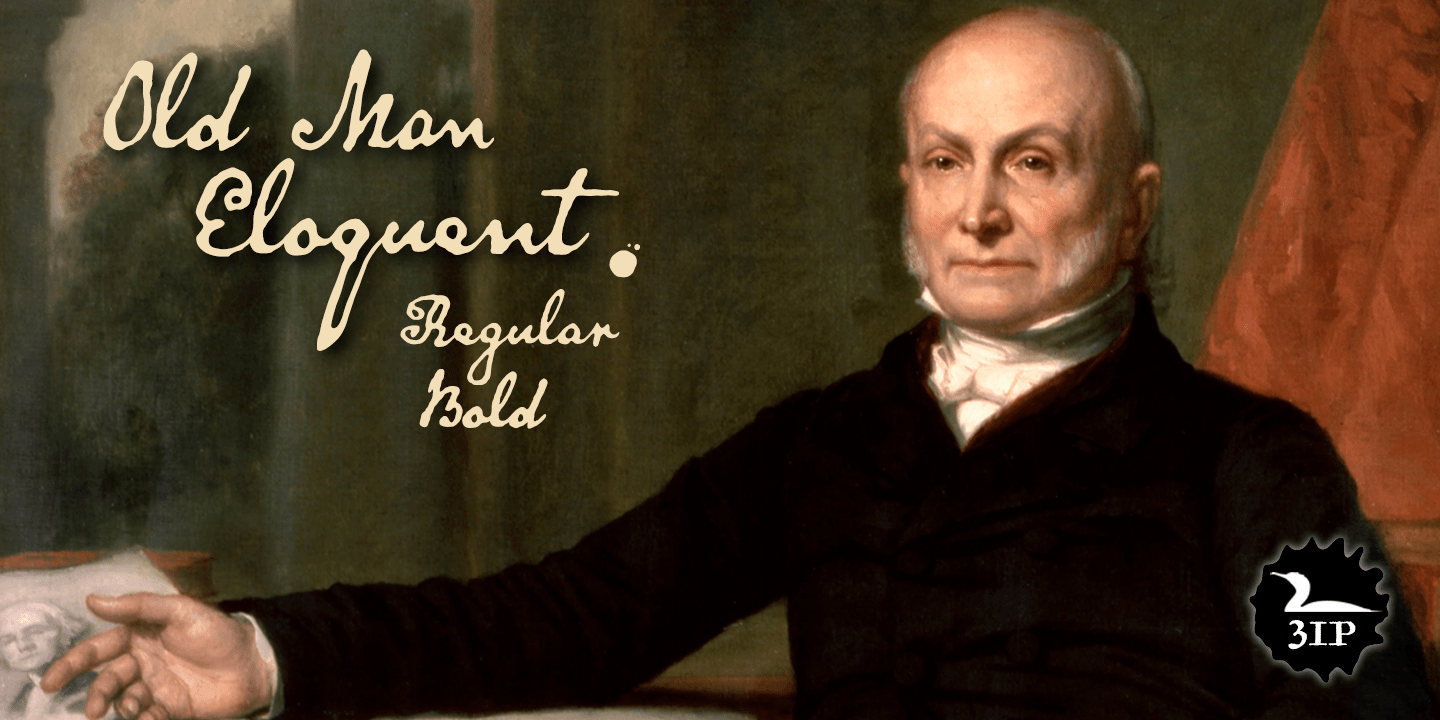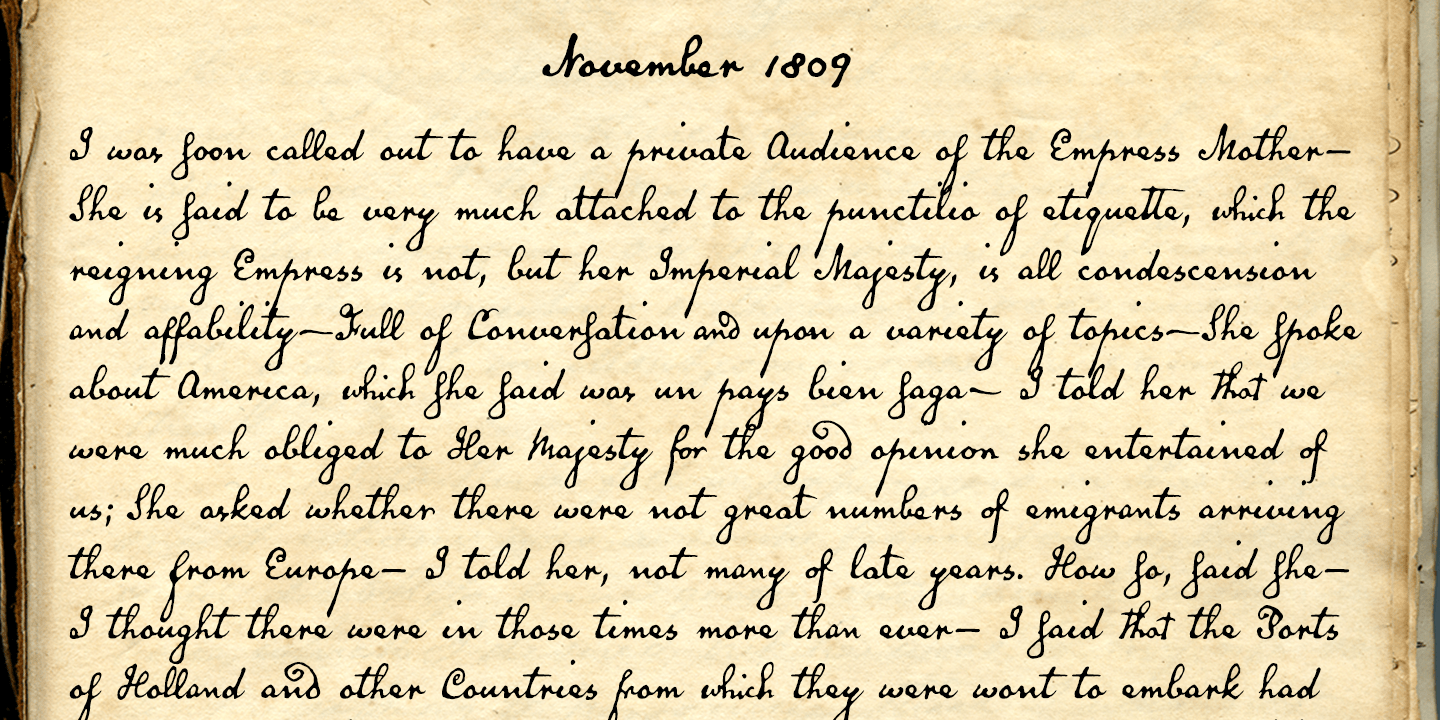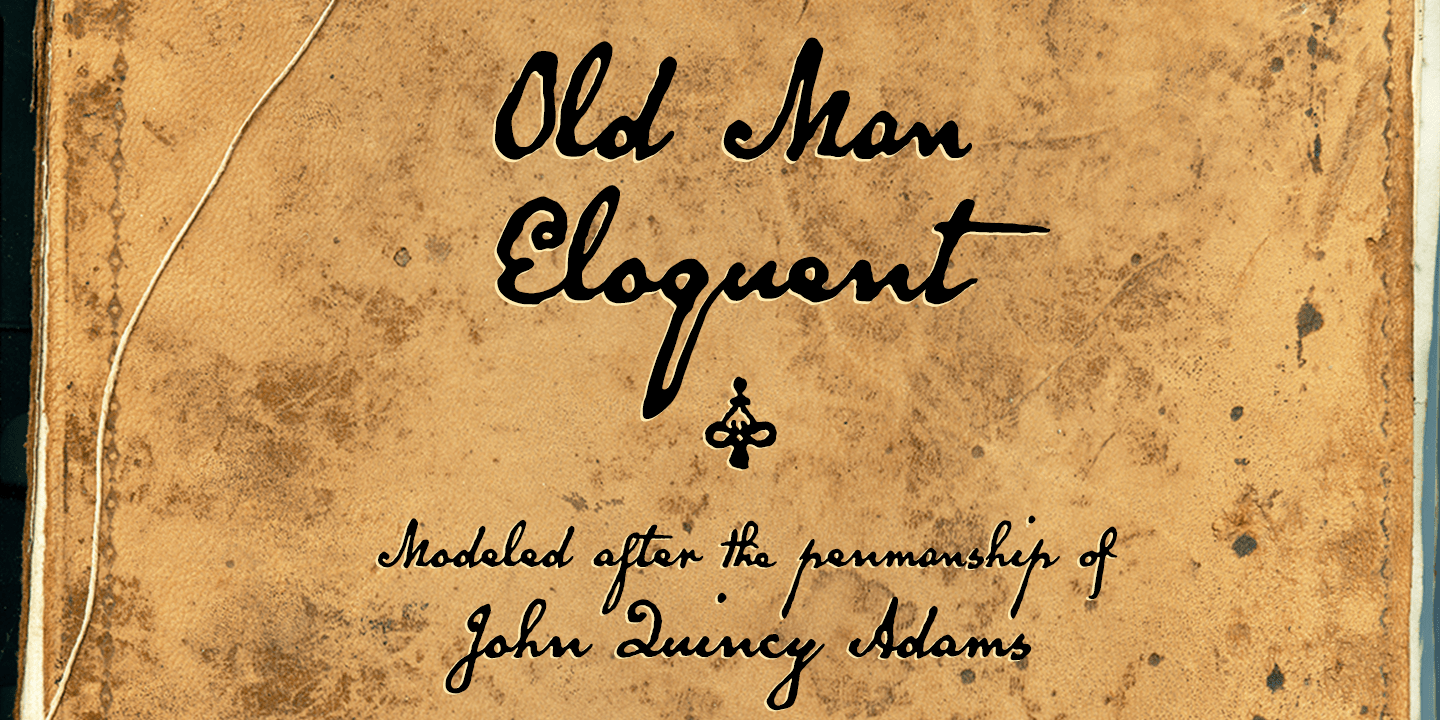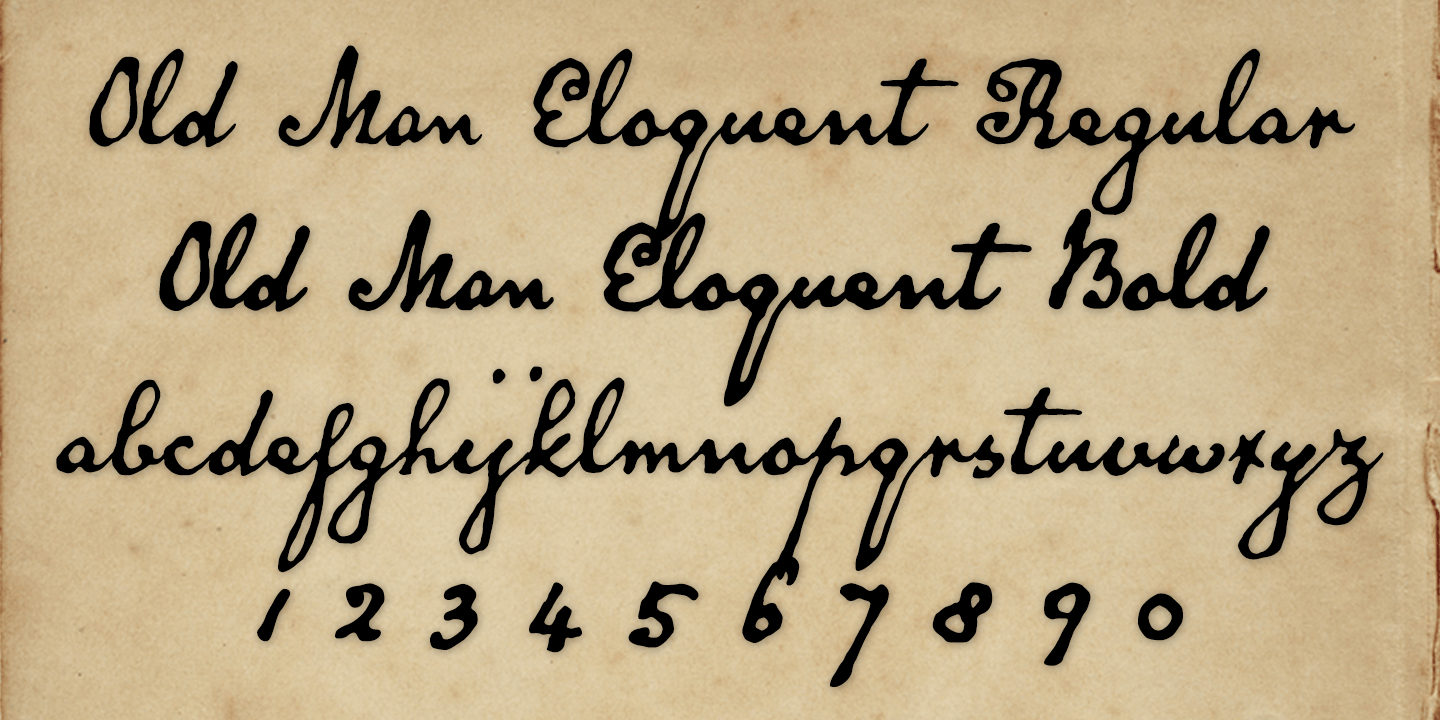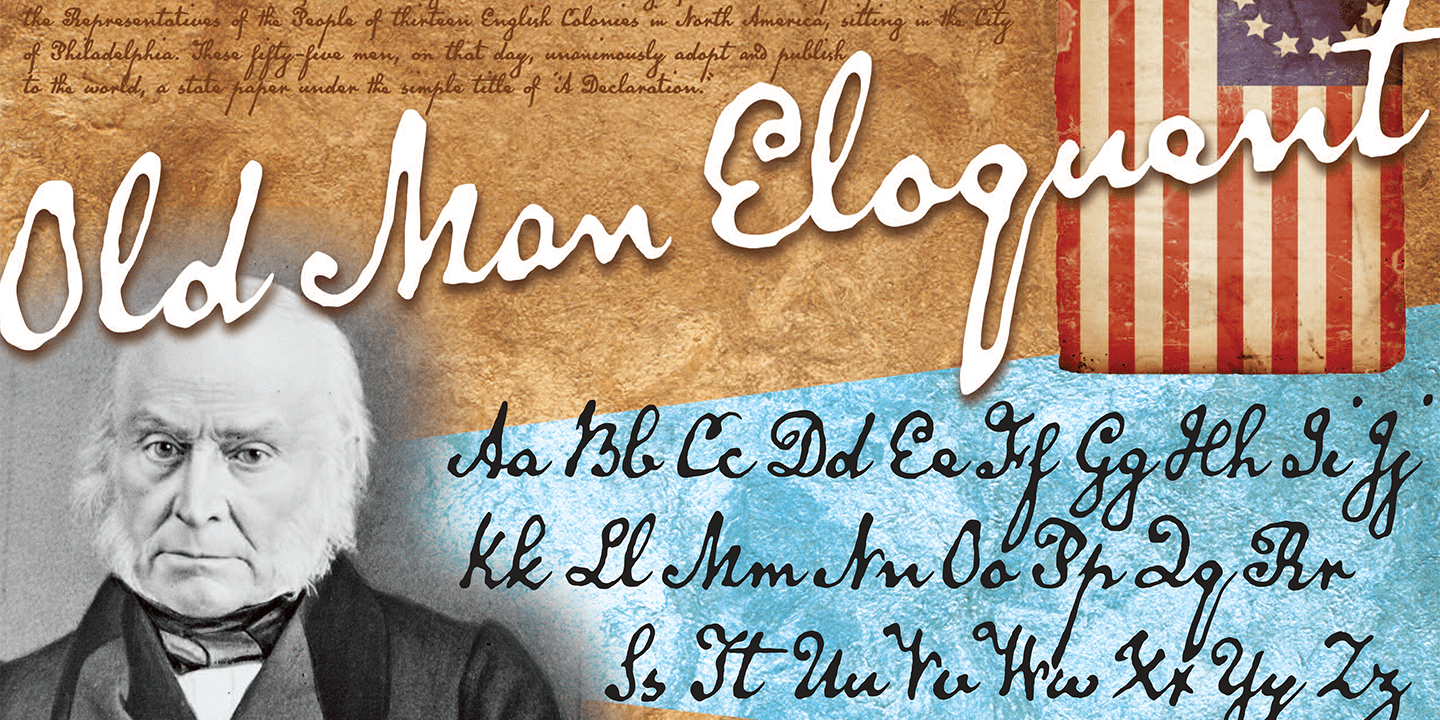
Old Man Eloquent
Font Family by Three Islands Press
John Quincy Adams, sixth President of the United States, didn't hit his stride until he'd left that lofty office.
It was during his many years in Congress that he assured his legacy, not least because of his long, masterful oratory opposing slavery. His speeches, in fact, won him the nickname ?Old Man Eloquent.? So when I decided to simulate Adams's penmanship in his legendary diary (which he kept for nearly 70 years), it seemed fitting to call the font by that name. I focused on his handwriting from about 1810, when he was Ambassador to Russia, but also consulted pages from later years.